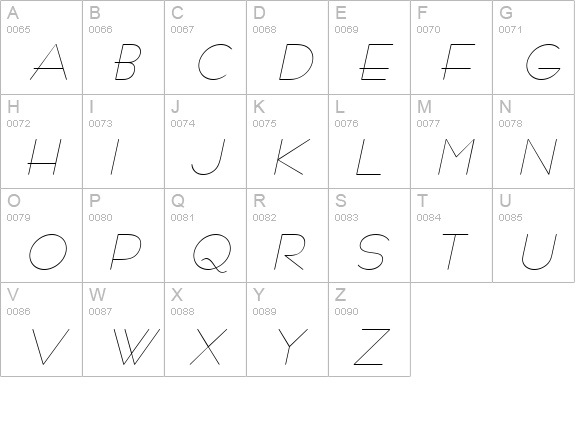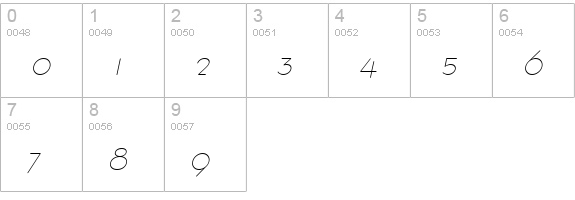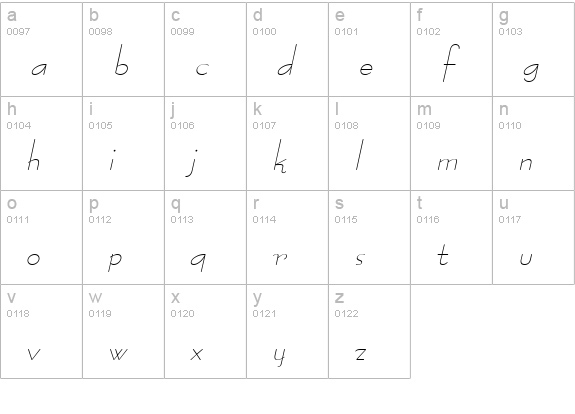
Bernie Italic is a distinctive, italic variant in the Bernie typeface family \xE2\x80\x94 well suited to design and typography projects.
Introducing Bernie Italic font - a stylish and elegant typeface that effortlessly combines classic sophistication with a modern twist. With its subtle curves and refined lines, Bernie Italic exudes a sense of grace and charm that is perfect for adding a touch of luxury to any design project. This exquisite font is now available for free download at FontsMarket.com, making it easily accessible to all designers and creatives looking to enhance their work with a touch of timeless elegance. Whether you're working on branding, invitations, or editorial designs, Bernie Italic is sure to elevate your projects with its unique flair and undeniable charm. Don't miss out on the opportunity to add this stunning font to your collection and bring a touch of sophistication to your next project. Download Bernie Italic for free today and let your creativity shine with this beautifully crafted typeface.